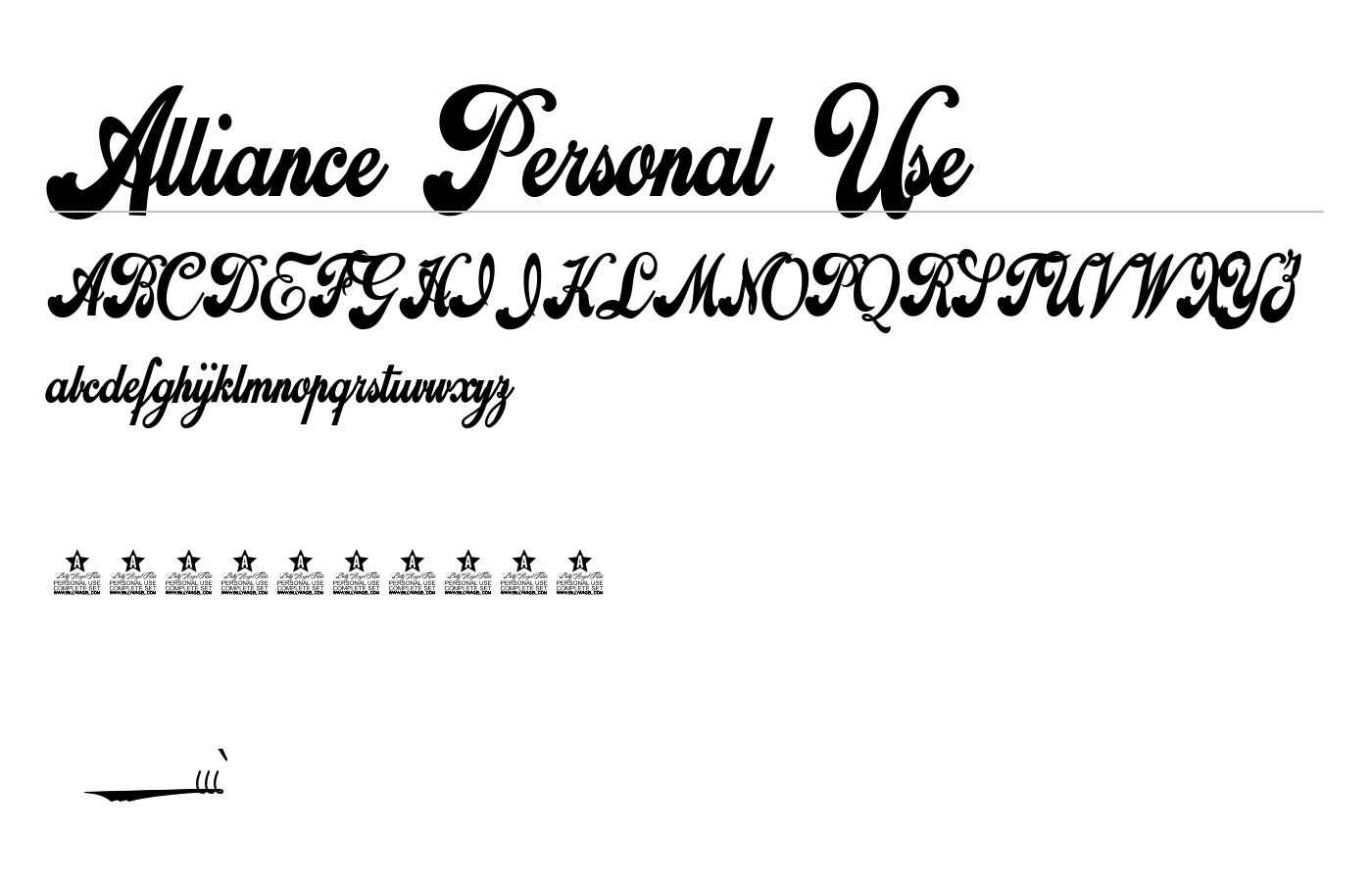
Alliance Personal Use is a bold and elegant script font with a strong vintage flair, featuring thick, flowing strokes and decorative flourishes. Its high contrast and italicized style give it a sophisticated, classic feel perfect for stylish branding, invitations, and headline designs that seek a touch of retro charm. This font works well where a timeless, graceful look is desired to capture attention with personality and flair.
Alliance Personal Use Font
About Alliance Personal Use Font
| Font family | Alliance Personal Use Font |